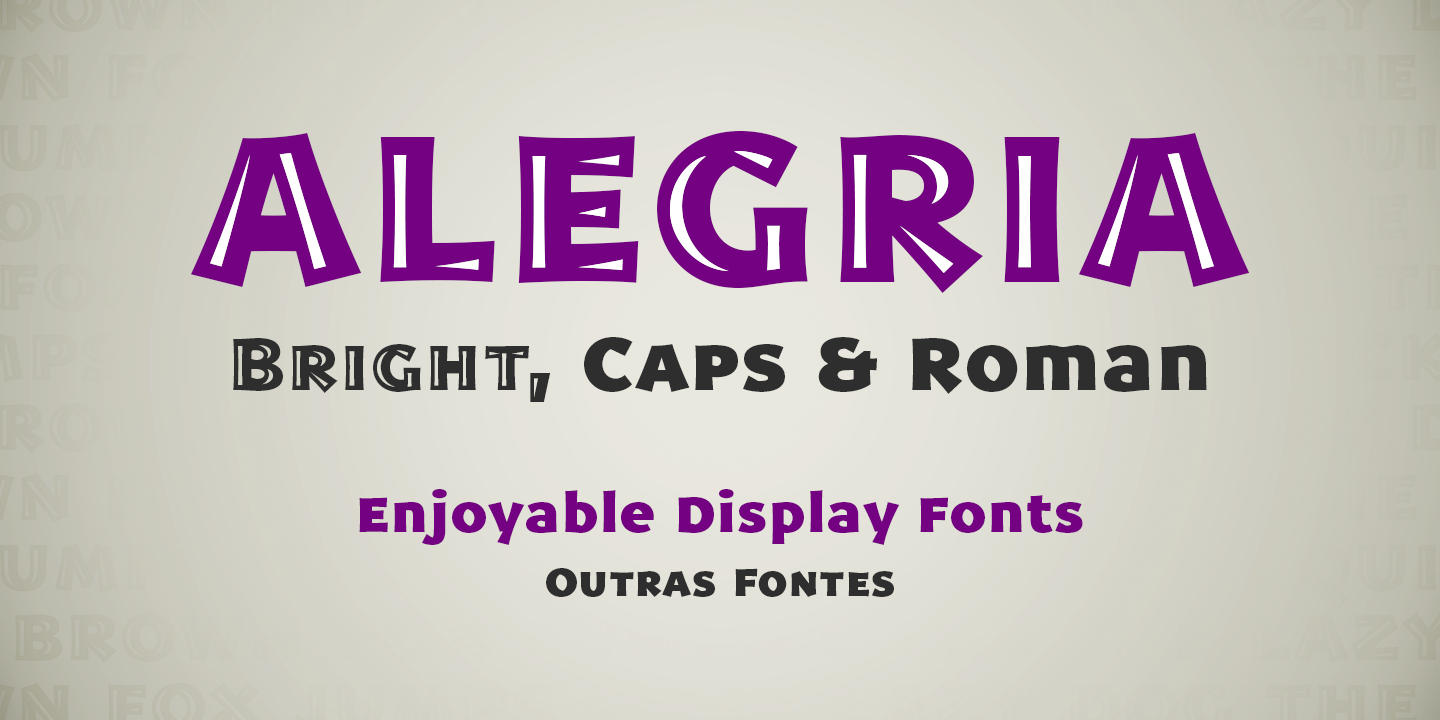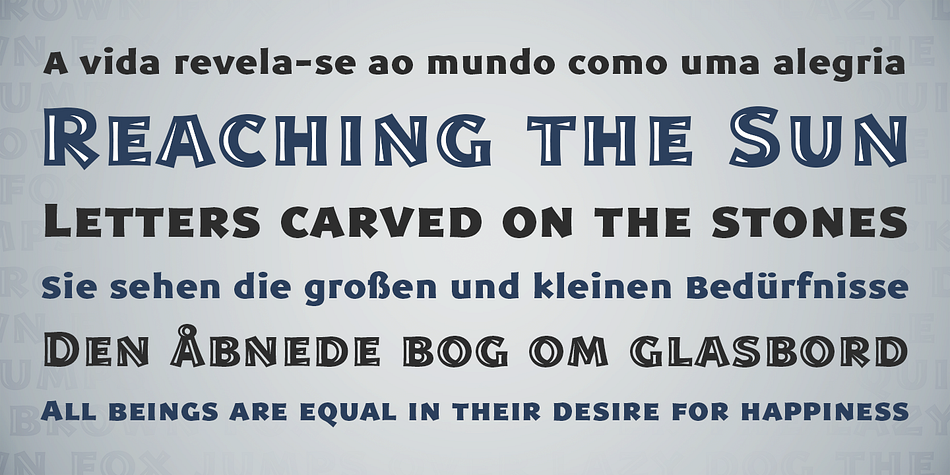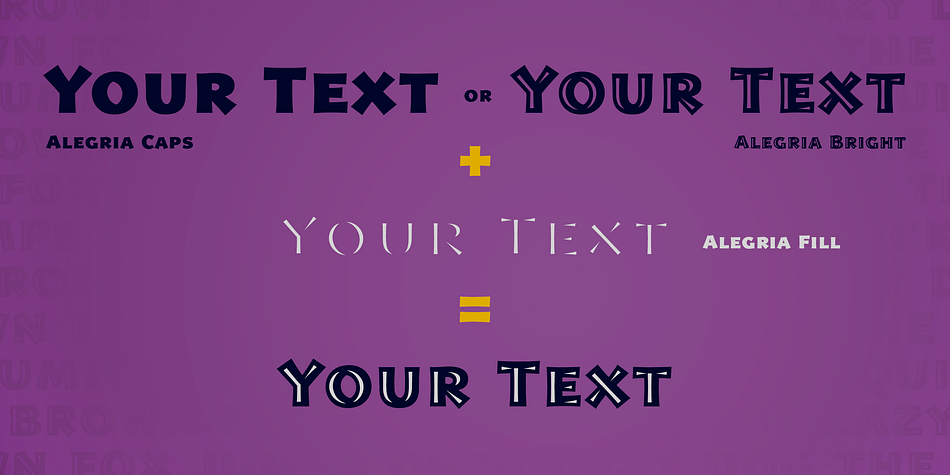
Alegria
Designed by Ricardo Esteves Gomes, Alegria is a display sans font family. This typeface has four styles and was published by Outras Fontes.
Alegria is a font family designed for joyful communication. The family is comprised of Alegria Roman (with upper/lowercase and oldstyle figures), Alegria Caps (with uppercase, small caps and lining figures), Alegria Bright (a small caps version with a three-dimensional feel) and Alegria Fill (that can be used as a second layer with Bright or Caps faces to create multiple colors on the text). Alegria family is suitable for short display texts and can be used in many ways you can creatively think of.